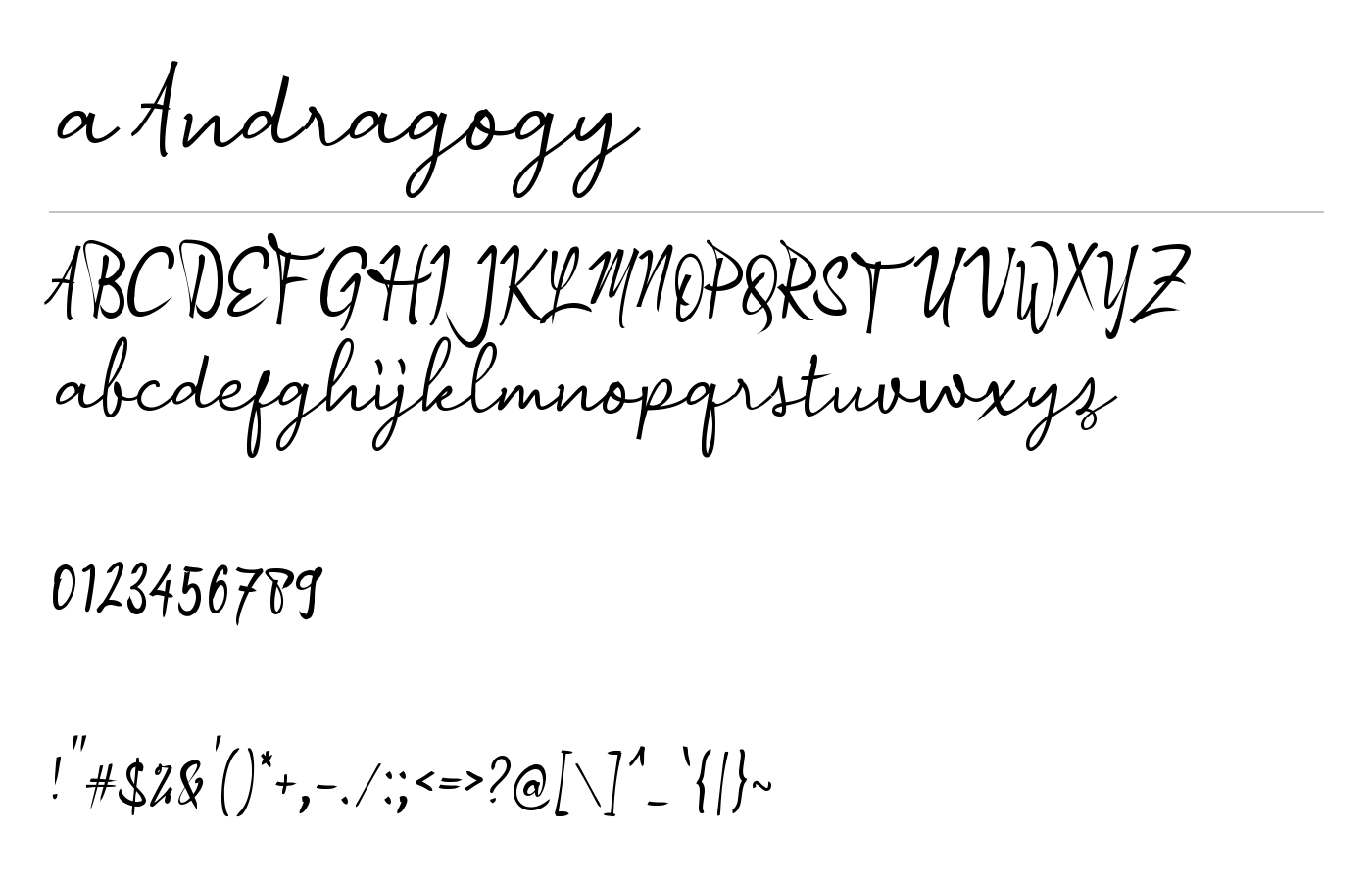
Andragogy is a handwritten script font with a delicate, airy feel, characterized by tall, slender letterforms and elegant, flowing strokes. Its organic, slightly irregular lines give it a personal and artistic touch, making it ideal for creative uses such as invitations, branding, and editorial designs that seek a warm, expressive, and approachable vibe. This font works well in settings where a natural, handcrafted aesthetic is desired to convey friendliness and individuality.
a Andragogy Font
About a Andragogy Font